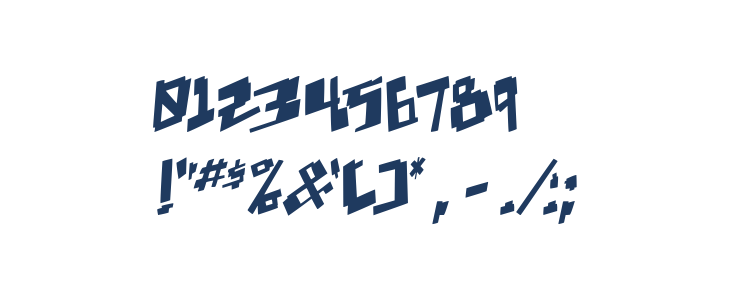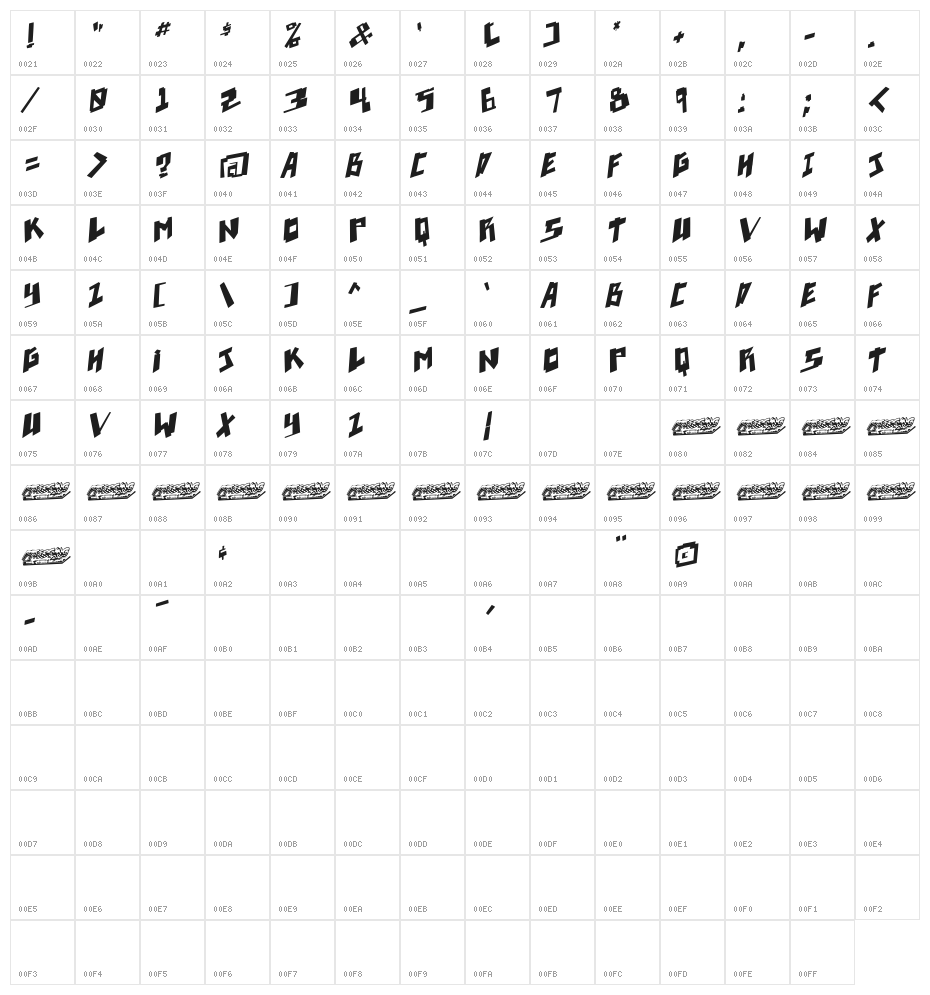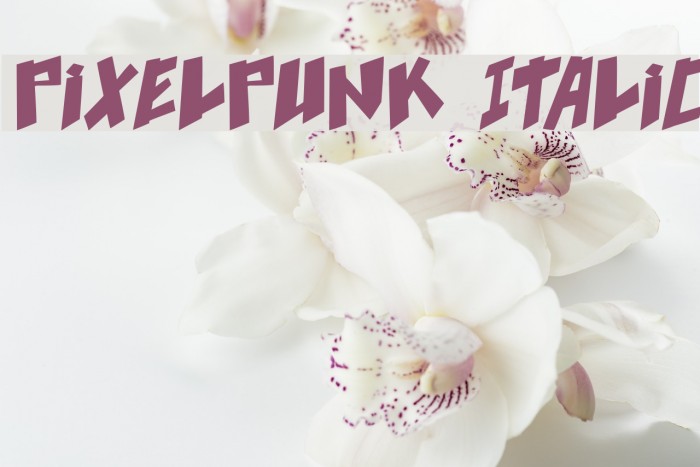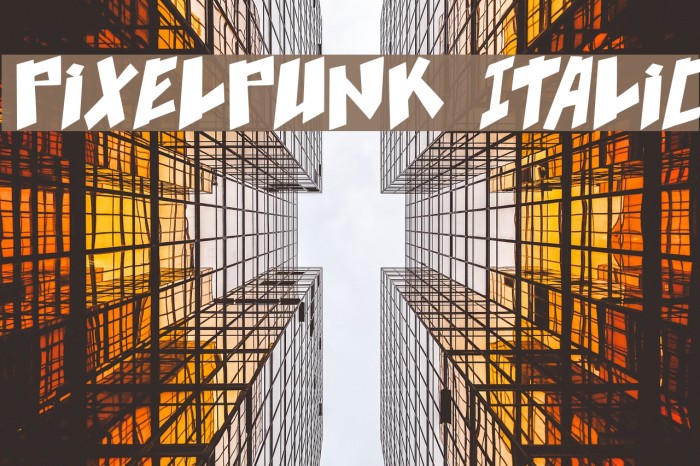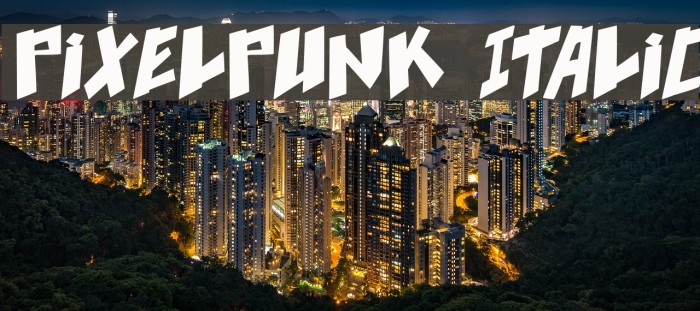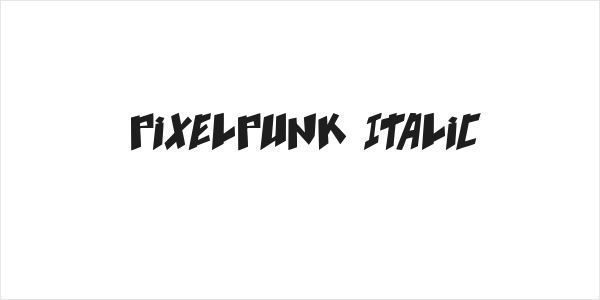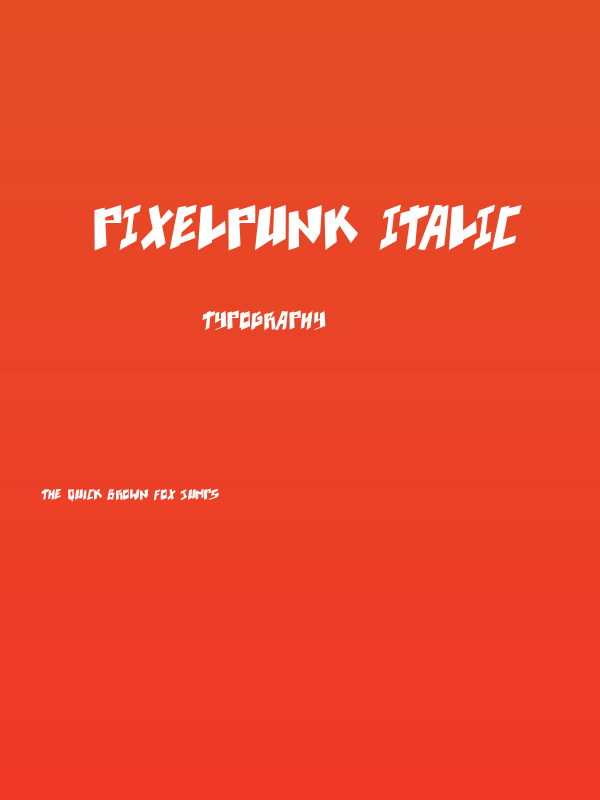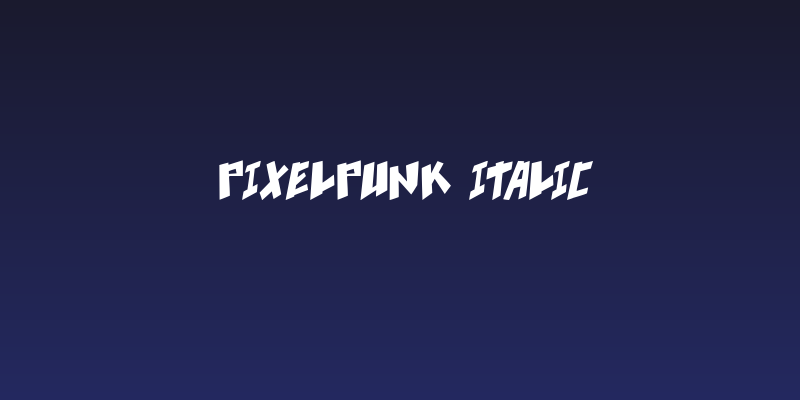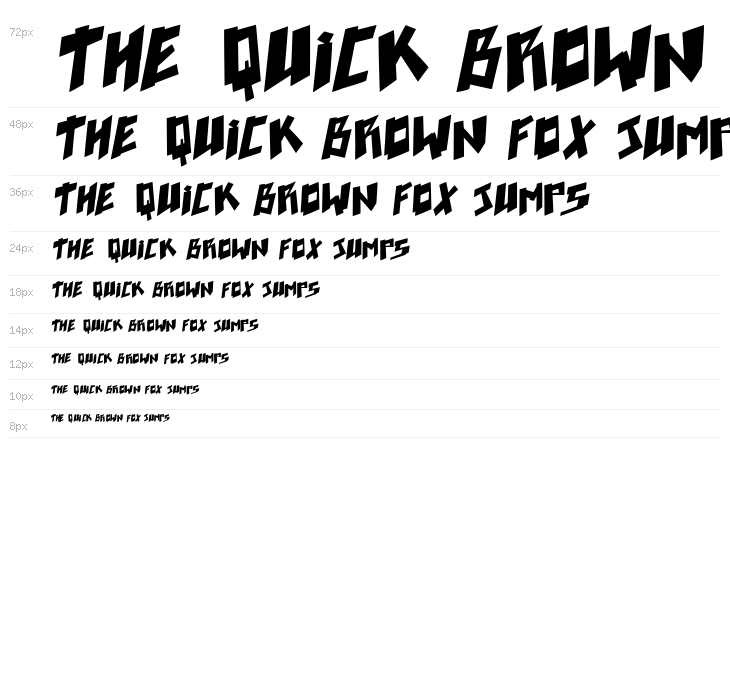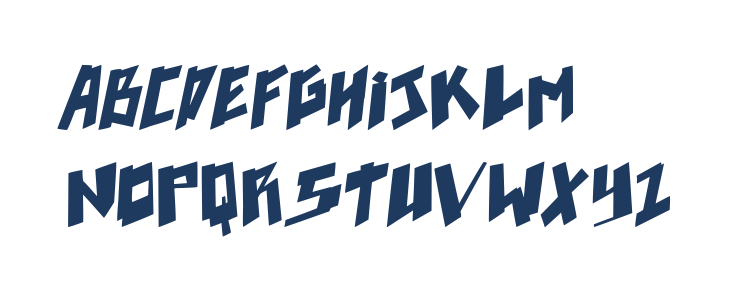
pixelpunk Italic Font
pixelpunk Italic Description
This font features a bold, angular design with a distinct italic slant, giving it a dynamic and edgy appearance. The characters are sharply cut with a futuristic, digital aesthetic reminiscent of pixel art. The uppercase and lowercase letters maintain a consistent style, with exaggerated angles and a blocky structure. Numbers and special characters follow the same geometric pattern, ensuring uniformity across all glyphs. The font's unique style makes it stand out, ideal for projects that require a modern, tech-inspired look.